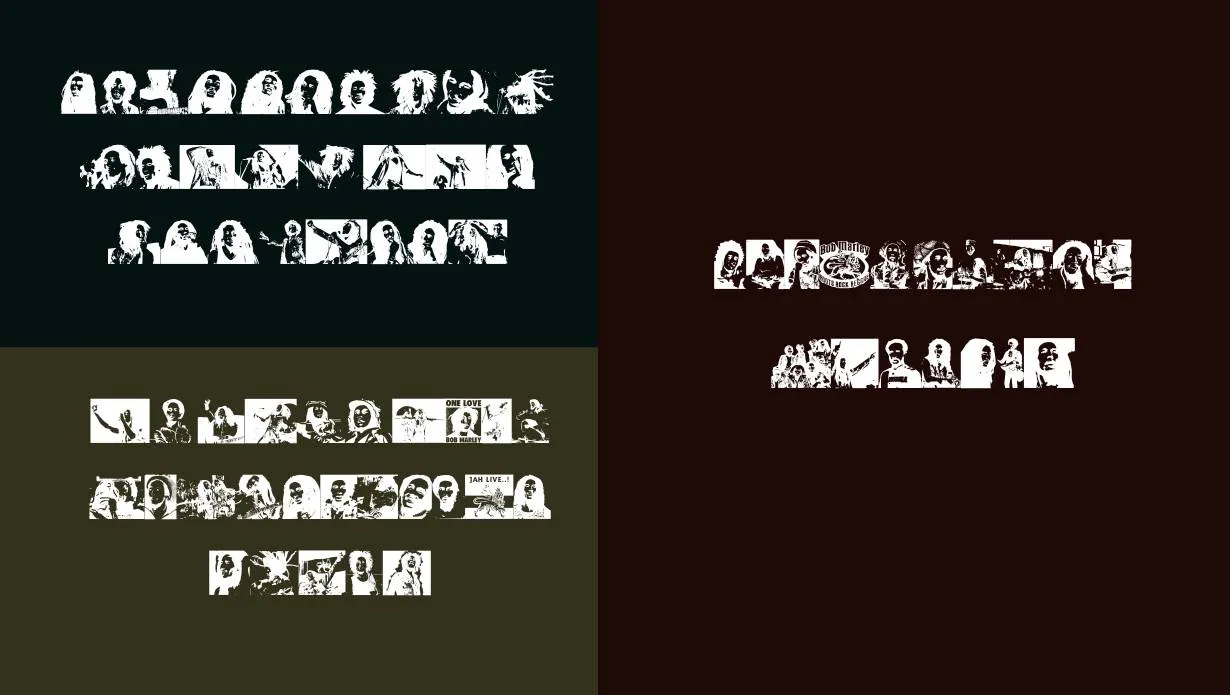
Feel the reggae rhythm with the Bob Marley Reggae Font. This typeface is like a musical journey, bringing the vibrant and expressive design of reggae culture to your words.
Perfect for music festival posters, reggae-themed events, or any project celebrating the spirit of Bob Marley, this font adds a musical and cultural vibe to your text. The typeface family is highly versatile and accommodating for numerous foreign languages, making it an ideal choice when paired with decorative fonts like Tellarite Font.
| Name | Bob Marley Reggae Font |
| Designer | Chanaka Liyanage |
| Style | Dingbats |